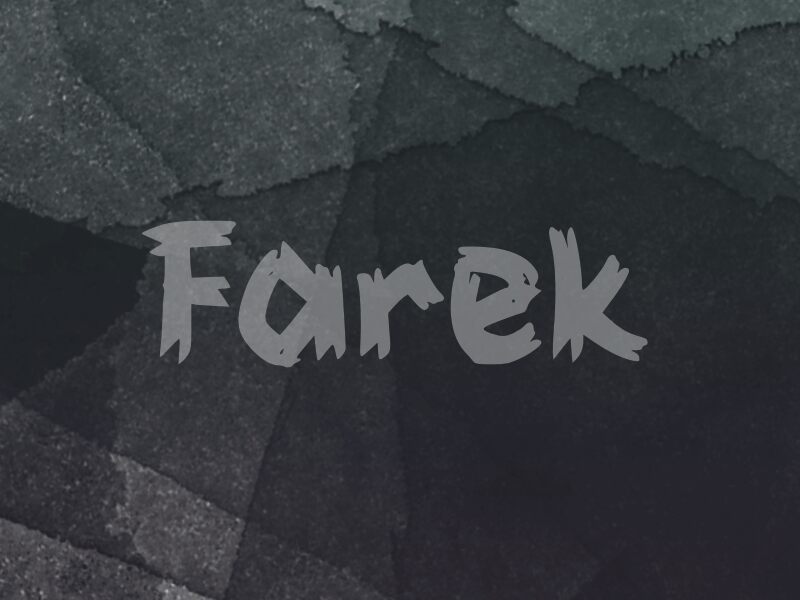
Farek
Farek font by Wep is a bold and scary display font that presents brush-like strokes with irregular shapes. This energetic typeface manages to create a hand-drawn appearance with unusual heights, widths, and sizes. The expressive character combined with a modern urban aesthetic guarantees original results that wouldn’t be possible if other fonts are used.
Freely use this typeface for magazine covers, album covers, movie posters, or book title designs. In addition to different sized printed projects, you can integrate it into applications and websites for your digital audience. Farak will even leave the needed influence when used for packaging or branding projects on small labels or typography-based logos.